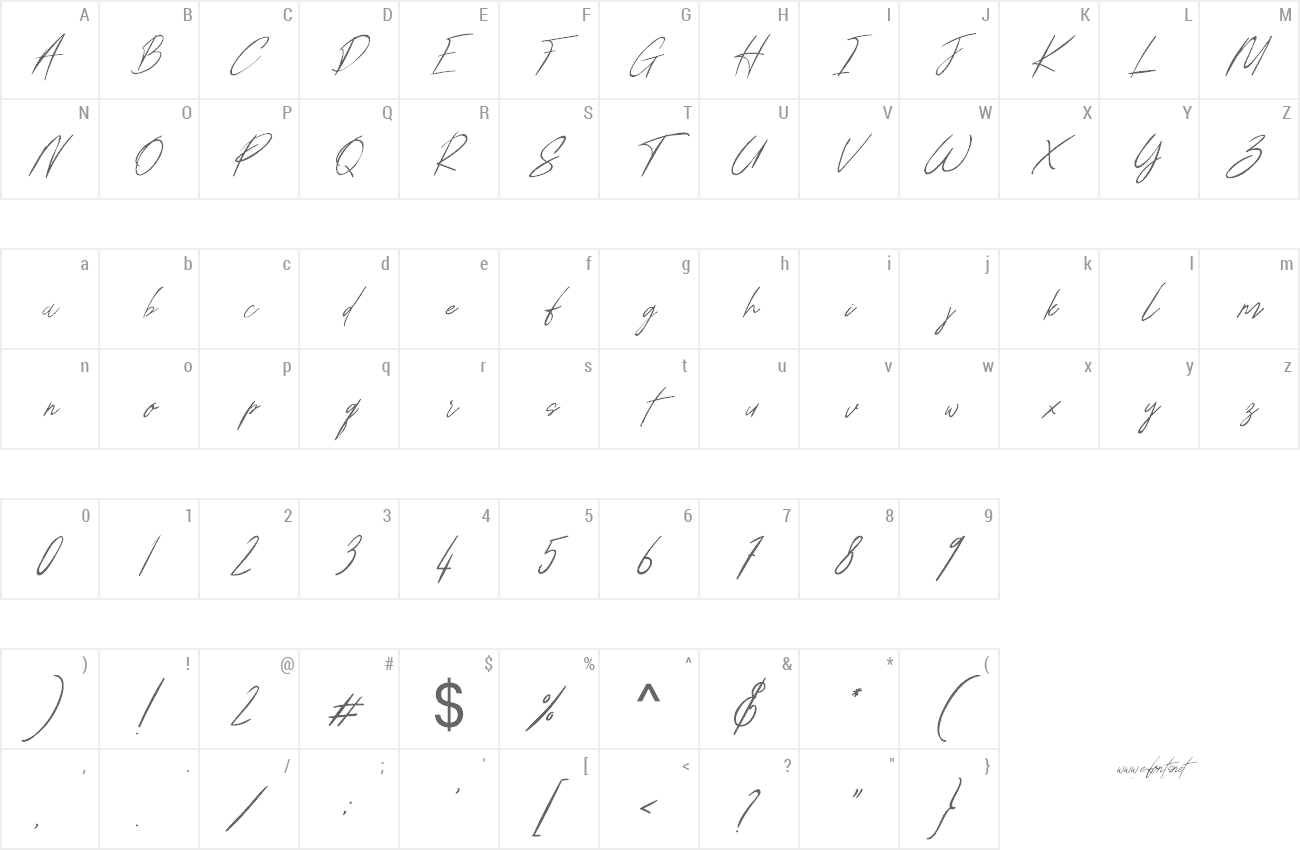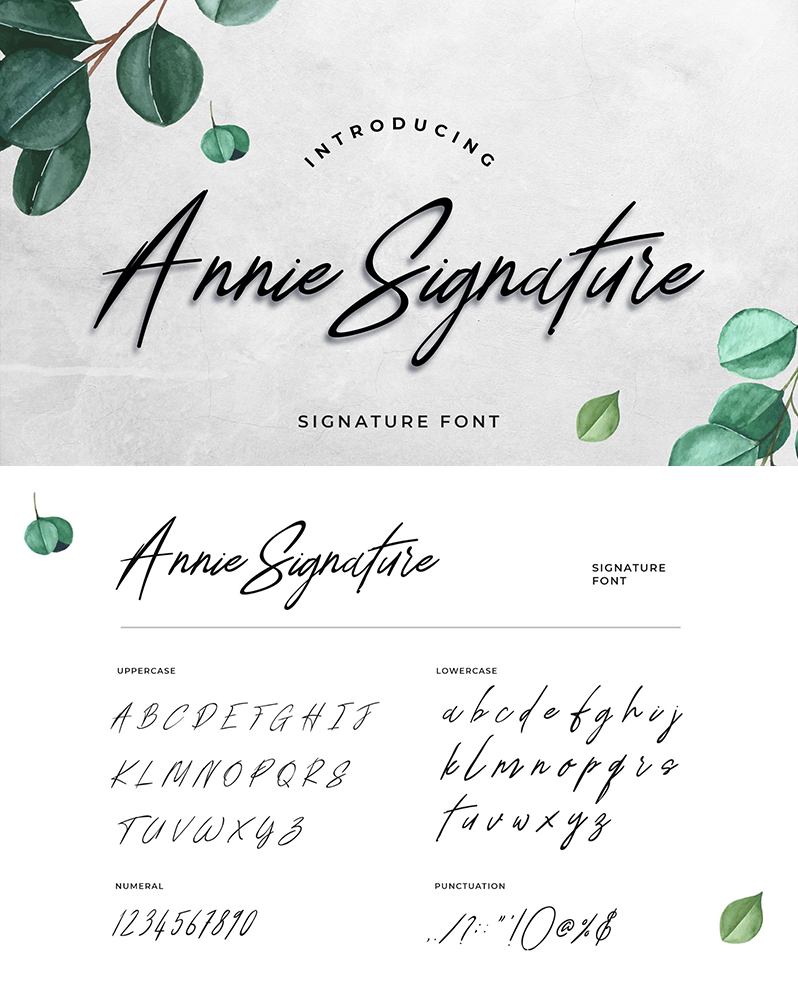
Annie Signature is a is a fancy casual handwritten script font. Comes with a combination of modern and elegant fonts, namely serif and signature style. This font is included in modern script types so perfect for imaging your personal brand and every great project, such as logos, labels, packaging designs, blog titles, posters, wedding designs, social media posts, Instagram designs, card invitations, art quotes, home decor, book / cover titles, etc. You can buy full license from our store for more our fonts: https://uicreative.net/products/fonts-annie-signature |